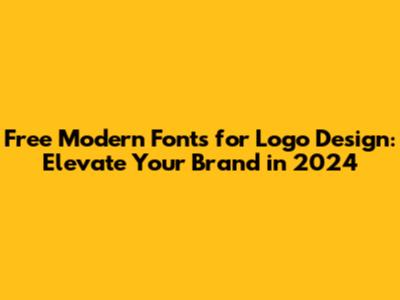
Free Modern Fonts: Elevate Your Logo Design In 2024
Choosing the right font is crucial for logo design. Your font isn't just about aesthetics; it's about communication. It conveys your brand's personality, values, and overall message. In 2024, modern fonts are all about clean lines, readability, and a touch of uniqueness that helps you stand out from the crowd. Forget those overused, generic fonts – we're diving into the world of free, high-quality modern fonts that can seriously elevate your logo design. Let's explore some amazing options and discuss how to choose the perfect one for your brand.
Why Modern Fonts Matter for Your Logo
Modern fonts are essential for creating a logo that resonates with today's audiences. In a world saturated with information, a clean and contemporary font can cut through the noise and capture attention. These fonts often feature simplified letterforms, geometric shapes, and a focus on legibility, making them ideal for conveying a sense of innovation, sophistication, and trustworthiness. Using a modern font in your logo demonstrates that your brand is current, forward-thinking, and attuned to the latest design trends. Moreover, many modern fonts are designed with digital platforms in mind, ensuring they look crisp and clear across various devices and screen sizes. This adaptability is crucial for maintaining a consistent brand identity in today's multi-channel marketing landscape. The right modern font can also evoke specific emotions and associations, helping to shape the perception of your brand. Whether you're aiming for a sleek and minimalist look or a bold and dynamic feel, a carefully selected modern font can effectively communicate your brand's unique personality and values. In essence, investing in a modern font is an investment in your brand's visual identity and its ability to make a lasting impression on your target audience.
Top Free Modern Fonts for Logo Design in 2024
Okay, guys, let's get to the good stuff! Here are some top-notch, free modern fonts that are perfect for logo design in 2024:
1. Montserrat
Montserrat is a geometric sans-serif font that has become a modern classic. Inspired by urban typography in Buenos Aires, it offers excellent readability and a clean, contemporary look. It's incredibly versatile, working well for a wide range of brands from tech startups to creative agencies. Montserrat's strength lies in its simplicity and clarity. The even strokes and balanced letterforms make it easy on the eyes, ensuring your logo is legible even at smaller sizes. It's also available in multiple weights, giving you plenty of flexibility to create visual hierarchy and emphasize specific elements in your logo. This font exudes a sense of professionalism and modernity, making it an ideal choice for brands that want to convey trustworthiness and innovation. Moreover, Montserrat's open-source license means you can use it freely for both personal and commercial projects, making it an accessible option for businesses of all sizes. Its widespread adoption also means it pairs well with a variety of other fonts, allowing you to create unique and visually appealing typography combinations for your brand. Whether you're designing a logo for a technology company, a fashion brand, or a consulting firm, Montserrat is a reliable and stylish choice that will stand the test of time. It's a font that balances simplicity with sophistication, making it a go-to option for designers seeking a modern and versatile typeface.
2. Raleway
Raleway is another fantastic sans-serif option, known for its elegant and slightly quirky design. It features a distinctive 'W' and a sophisticated feel, making it perfect for brands that want to project a sense of style and sophistication. It started as a display font but has since been expanded into a full family, offering versatility for both headlines and body text. Raleway's strengths lie in its unique letterforms and its ability to convey a sense of elegance and modernity. The thin strokes and geometric shapes give it a refined appearance, making it suitable for luxury brands, fashion labels, and creative agencies. It's also available in a wide range of weights, allowing you to create visual interest and hierarchy in your logo. Raleway's distinct personality can help your brand stand out from the competition, especially when used creatively in combination with other fonts or graphic elements. Its open-source license makes it accessible to everyone, regardless of their budget. Furthermore, Raleway's widespread availability and extensive character set make it a reliable choice for international brands. Whether you're designing a logo for a high-end boutique, a technology startup, or a non-profit organization, Raleway can help you create a visually appealing and memorable brand identity. Its versatility and distinctive style make it a valuable addition to any designer's font library.
3. Open Sans
Open Sans is a humanist sans-serif font designed by Steve Matteson. Optimized for print, web, and mobile interfaces, it boasts excellent readability across various platforms. Its neutral yet friendly appearance makes it a versatile choice for diverse brands. Open Sans is characterized by its open forms and neutral, yet friendly appearance. This makes it exceptionally readable in a variety of contexts, from print to digital interfaces. It's a great choice for brands that need a reliable and accessible font that can be used across all of their marketing materials. This font's strength lies in its versatility and clarity. The even strokes and balanced letterforms make it easy on the eyes, ensuring your logo is legible even at smaller sizes. It's also available in multiple weights, giving you plenty of flexibility to create visual hierarchy and emphasize specific elements in your logo. This font exudes a sense of professionalism and approachability, making it an ideal choice for brands that want to convey trustworthiness and reliability. Moreover, Open Sans's open-source license means you can use it freely for both personal and commercial projects, making it an accessible option for businesses of all sizes. Whether you're designing a logo for a healthcare provider, a financial institution, or an educational organization, Open Sans is a reliable and stylish choice that will stand the test of time. It's a font that balances simplicity with functionality, making it a go-to option for designers seeking a modern and versatile typeface.
4. Lato
Lato is a sans-serif typeface designed by Ɓukasz Dziedzic. With semi-rounded details, Lato conveys warmth and approachability while maintaining a professional aesthetic. It’s incredibly legible in both large and small sizes, making it perfect for logos and branding materials. Lato's semi-rounded details give it a unique character that sets it apart from other sans-serif fonts. This subtle warmth makes it an excellent choice for brands that want to convey a sense of friendliness and approachability. At the same time, its clean lines and balanced proportions ensure it maintains a professional and modern aesthetic. This makes Lato a versatile option for a wide range of industries, from technology to hospitality. The font's legibility is another key strength, ensuring that your logo will be easily readable in both large and small sizes. This is especially important for brands that need to use their logo across a variety of platforms, from websites to business cards. Furthermore, Lato's open-source license makes it accessible to everyone, regardless of their budget. Whether you're designing a logo for a coffee shop, a software company, or a community organization, Lato can help you create a visually appealing and memorable brand identity. Its blend of warmth, professionalism, and legibility makes it a valuable addition to any designer's font library.
5. Poppins
Poppins is a geometric sans-serif typeface that supports the Devanagari and Latin writing systems. Its clean, modern design makes it an excellent choice for logos, headlines, and body text. Its rounded letterforms give it a friendly and approachable feel. Poppins is a versatile font that works well in a variety of contexts. Its geometric structure provides a clean and modern look, while its rounded letterforms add a touch of friendliness and approachability. This balance makes it an excellent choice for brands that want to convey a sense of innovation and trustworthiness. The font's support for both Devanagari and Latin writing systems also makes it a great option for international brands. Poppins' strengths lie in its clarity, versatility, and its ability to create a visual hierarchy in design. It's also available in multiple weights, giving you plenty of flexibility to emphasize specific elements in your logo. This font exudes a sense of professionalism and friendliness, making it an ideal choice for brands that want to convey approachability and credibility. Its open-source license means you can use it freely for both personal and commercial projects, making it an accessible option for businesses of all sizes. Whether you're designing a logo for a tech startup, a creative agency, or a non-profit organization, Poppins is a stylish and modern choice that will stand the test of time. Its blend of geometric precision and rounded warmth makes it a valuable asset for any designer.
Choosing the Right Font for Your Logo: Key Considerations
Choosing the perfect modern font for your logo isn't just about picking something that looks cool. It's a strategic decision that should align with your brand's identity and values. Here's what to keep in mind:
• Brand Personality: What kind of vibe are you going for? Sophisticated? Playful? Bold? Make sure the font reflects that.
• Readability: Can people easily read your logo, even at small sizes? If not, ditch it!
• Versatility: Will the font work well on your website, business cards, and social media? Think about all the places your logo will appear.
• Competitor Analysis: What fonts are your competitors using? You want to stand out, not blend in.
• Target Audience: Consider what font styles appeal to your target demographic. Are they more receptive to classic or contemporary designs?
• Font Pairing: Explore how the chosen font complements other fonts used in your branding. A harmonious combination can elevate the overall design and create a more cohesive brand identity.
• Scalability: Ensure the font remains legible and visually appealing at various sizes, from large banners to small icons. A well-chosen font will maintain its clarity and impact regardless of the application.
Level Up Your Logo Design Today
So, there you have it! A curated list of free modern fonts that can help you create a logo that's both stylish and effective. Remember, your logo is the face of your brand, so choose wisely. Experiment with different fonts, consider your brand's personality, and don't be afraid to get creative. With the right font, you can create a logo that truly represents your brand and helps you stand out in a crowded marketplace. Good luck, and happy designing!